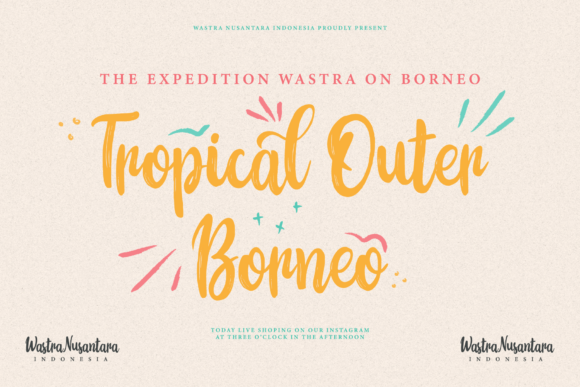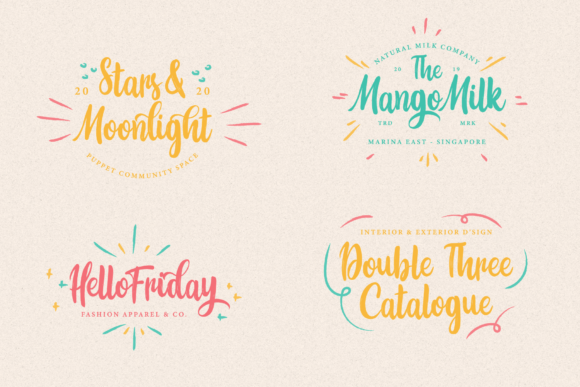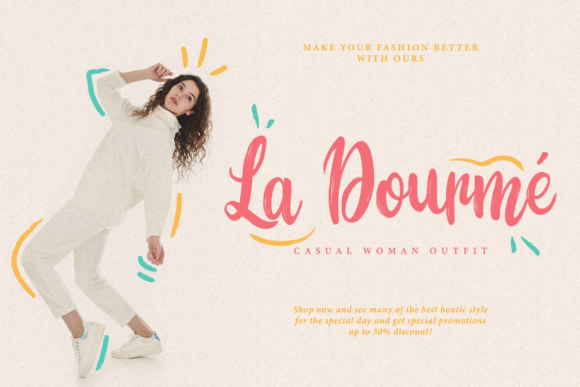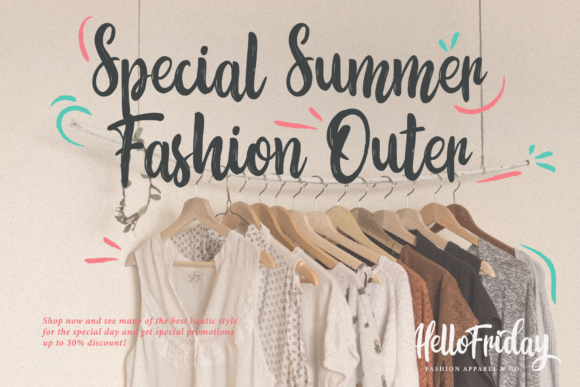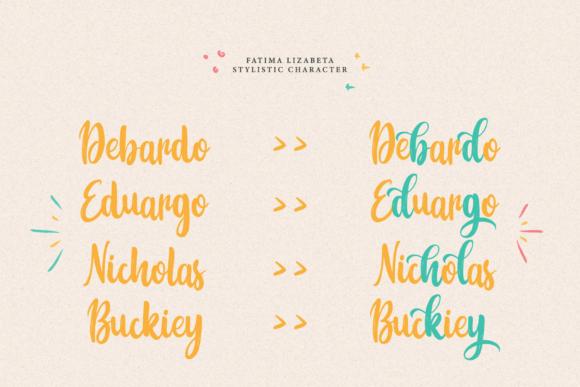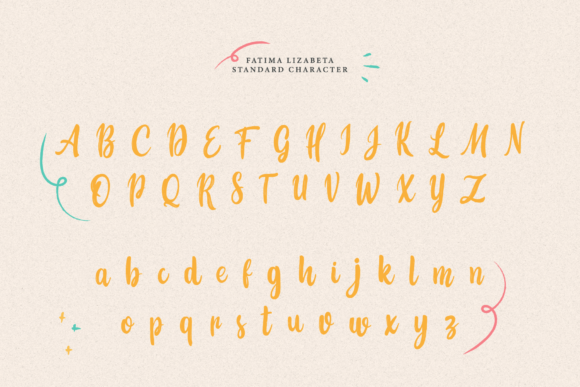
Introducing Fatima Lizabeta Font: Elevate Your Designs with Elegance
Are you a designer or crafter looking for a font that embodies delicacy, elegance, and fluidity? Look no further than the Fatima Lizabeta font. This beautiful, handwritten font is designed to bring a touch of sophistication and refinement to your creative projects. With its well-balanced characters and versatile nature, Fatima Lizabeta is the perfect addition to your font collection.
The Characteristics of Fatima Lizabeta Font
Fatima Lizabeta is a delicate, elegant, and flowing handwritten font that boasts beautiful and well-balanced characters. Its unique design makes it an excellent match for a wide range of designs, from wedding invitations and branding materials to digital content and craft projects. The font’s flowing lines and curves create a sense of movement and fluidity, adding a touch of dynamism to your designs.
Why Choose Fatima Lizabeta Font?
So, why should you choose Fatima Lizabeta font for your next project? Here are just a few reasons:
- Elegance and Sophistication: Fatima Lizabeta exudes elegance and sophistication, making it perfect for high-end designs, luxury brands, and special occasions.
- Versatility: The font’s versatility means it can be used in a wide range of designs, from formal and traditional to modern and playful.
- Readability: Fatima Lizabeta is highly readable, even at small sizes, making it ideal for body text, headings, and titles.
- Uniqueness: With its unique design, Fatima Lizabeta will help your designs stand out from the crowd and leave a lasting impression.
How to Use Fatima Lizabeta Font in Your Designs
Fatima Lizabeta font is incredibly easy to use and can be incorporated into your designs in a variety of ways. Here are a few ideas to get you started:
- Wedding Invitations: Add a touch of romance and elegance to your wedding invitations, save-the-dates, and other stationery with Fatima Lizabeta.
- Branding Materials: Use Fatima Lizabeta to create stunning branding materials, such as logos, business cards, and letterheads, that reflect your brand’s personality and style.
- Digital Content: Elevate your digital content, including social media graphics, blog posts, and email newsletters, with the elegant and flowing lines of Fatima Lizabeta.
- Craft Projects: Add a personal touch to your craft projects, such as handmade cards, scrapbooking, and DIY gifts, with the beautiful and delicate Fatima Lizabeta font.
Tips for Getting the Most Out of Fatima Lizabeta Font
To get the most out of Fatima Lizabeta font, here are a few tips to keep in mind:
- Experiment with Pairings: Try pairing Fatima Lizabeta with other fonts to create unique and interesting combinations.
- Play with Sizes: Experiment with different font sizes to create visual hierarchy and add emphasis to your designs.
- Use it Sparingly: Use Fatima Lizabeta sparingly to create a sense of luxury and exclusivity.
In conclusion, Fatima Lizabeta font is a beautiful, elegant, and versatile handwritten font that is perfect for designers and crafters looking to add a touch of sophistication and refinement to their creative projects. With its well-balanced characters, flowing lines, and unique design, Fatima Lizabeta is sure to elevate your designs and help them stand out from the crowd. So why wait? Add Fatima Lizabeta to your font collection today and notice how it brings your most creative ideas to life!